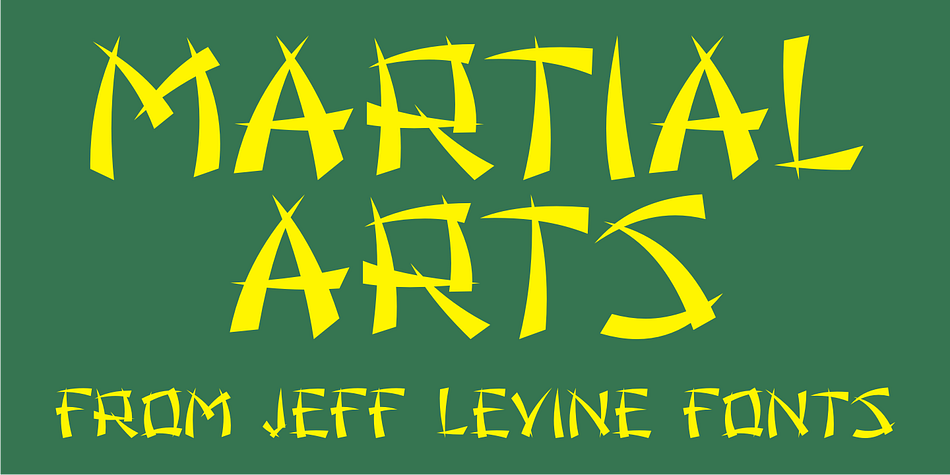
MARTIAL ARTS JNL
Designed by Jeff Levine, Martial Arts JNL is an exotic font family published by Jeff Levine Fonts.
The 1946 foreign publication entitled "100 Alphabets Publicitaires" ("100 Advertising Alphabets") collects a number of interesting and attractive lettering samples for design inspiration.
The 1946 foreign publication entitled “100 Alphabets Publicitaires” (“100 Advertising Alphabets”) collects a number of interesting and attractive lettering samples for design inspiration.
One such example is faux-Asian inspired and was re-drawn as the digital type face now named Martial Arts JNL.
Foundry Jeff Levine Fonts
Style Exotic
Designer Jeff Levine